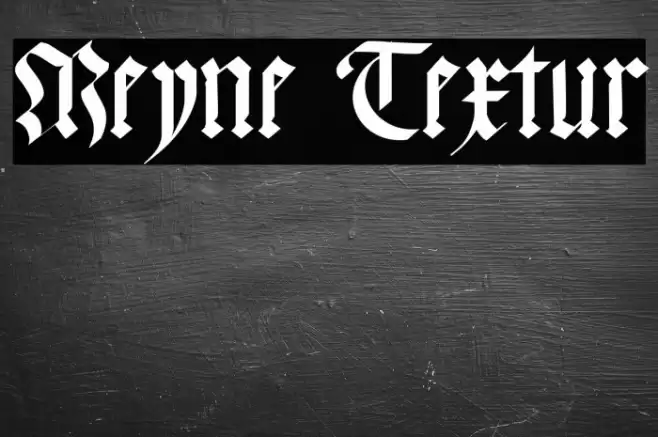
Meyne Textur Font
Meyne Textur Description
This font exhibits a classic blackletter style, characterized by its ornate and intricate letterforms. The uppercase letters are bold and angular, with sharp edges and a distinct medieval aesthetic. The lowercase letters maintain a similar style, with a slightly more condensed form, enhancing the traditional look. Numbers and special characters are crafted with the same attention to detail, ensuring consistency across the entire typeface. The overall appearance is both decorative and historical, making it suitable for projects that require a touch of elegance and antiquity.
A bold, ornate blackletter font with a medieval aesthetic from Uncategorized fonts.